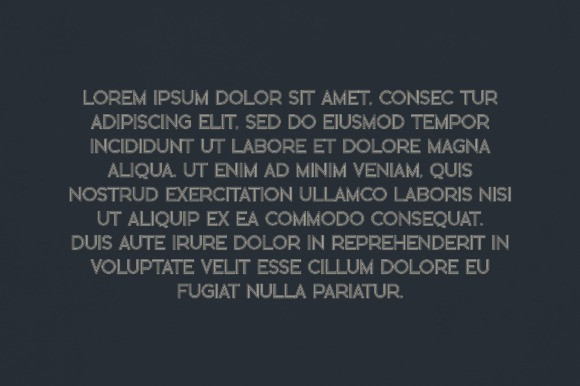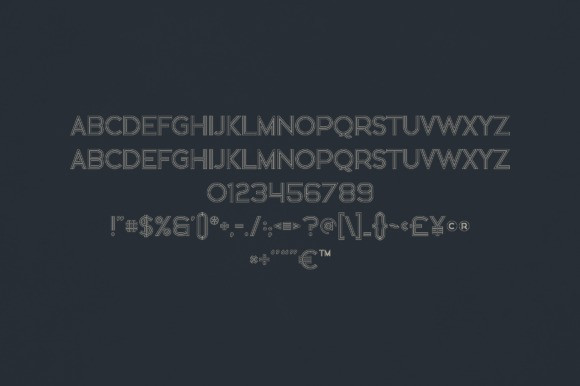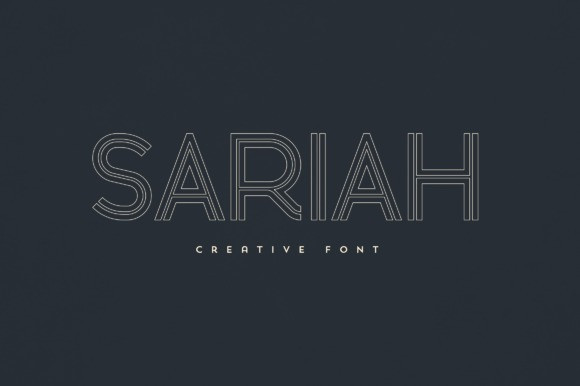
Sariah Display Font
Sariah Display Font is an elegant and versatile display font that will make your typography truly unique! It will enchant every logo, branding, headline, or plain text!